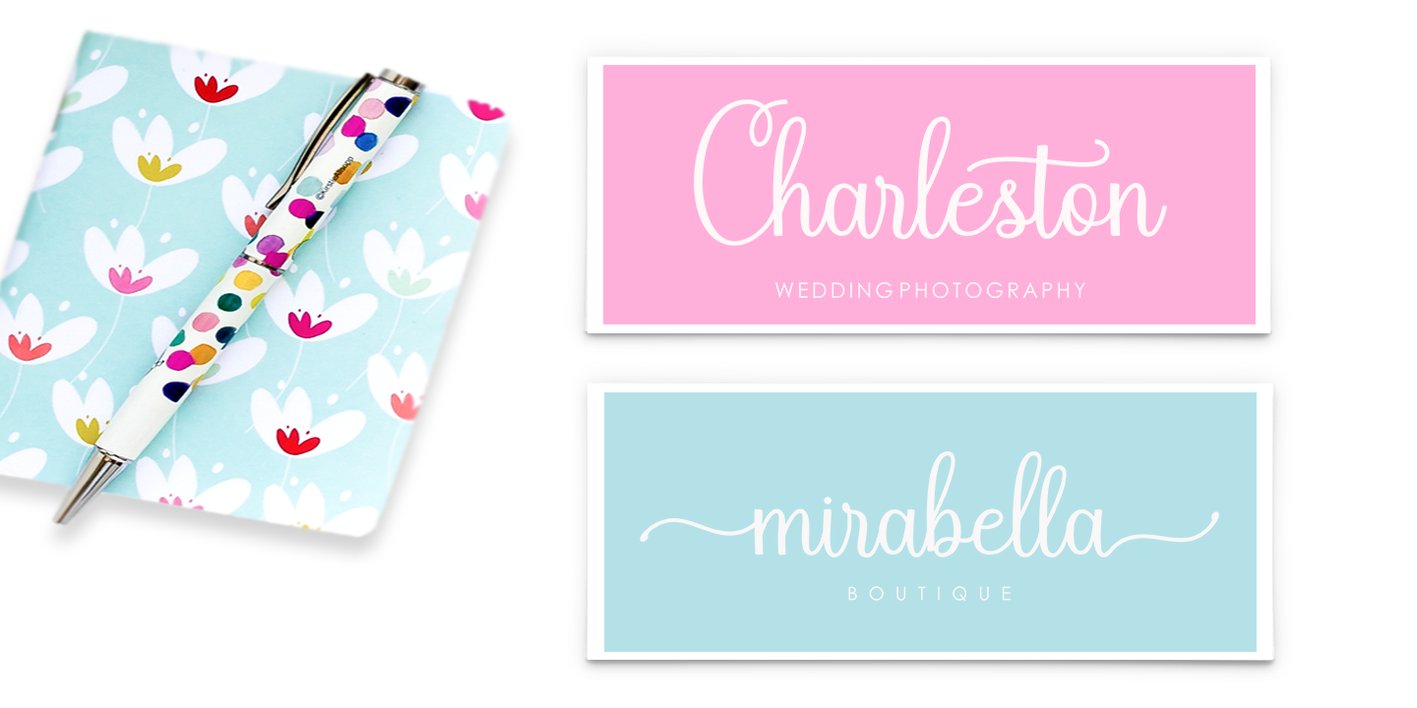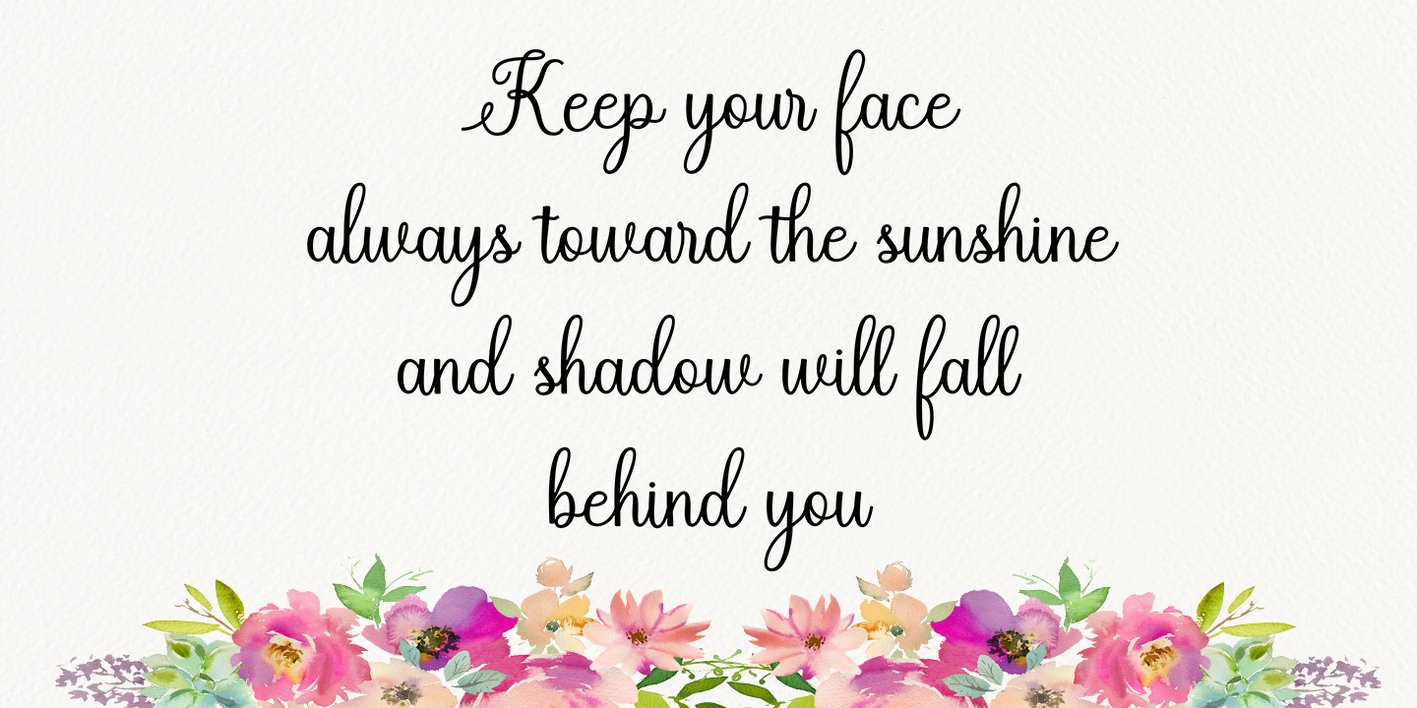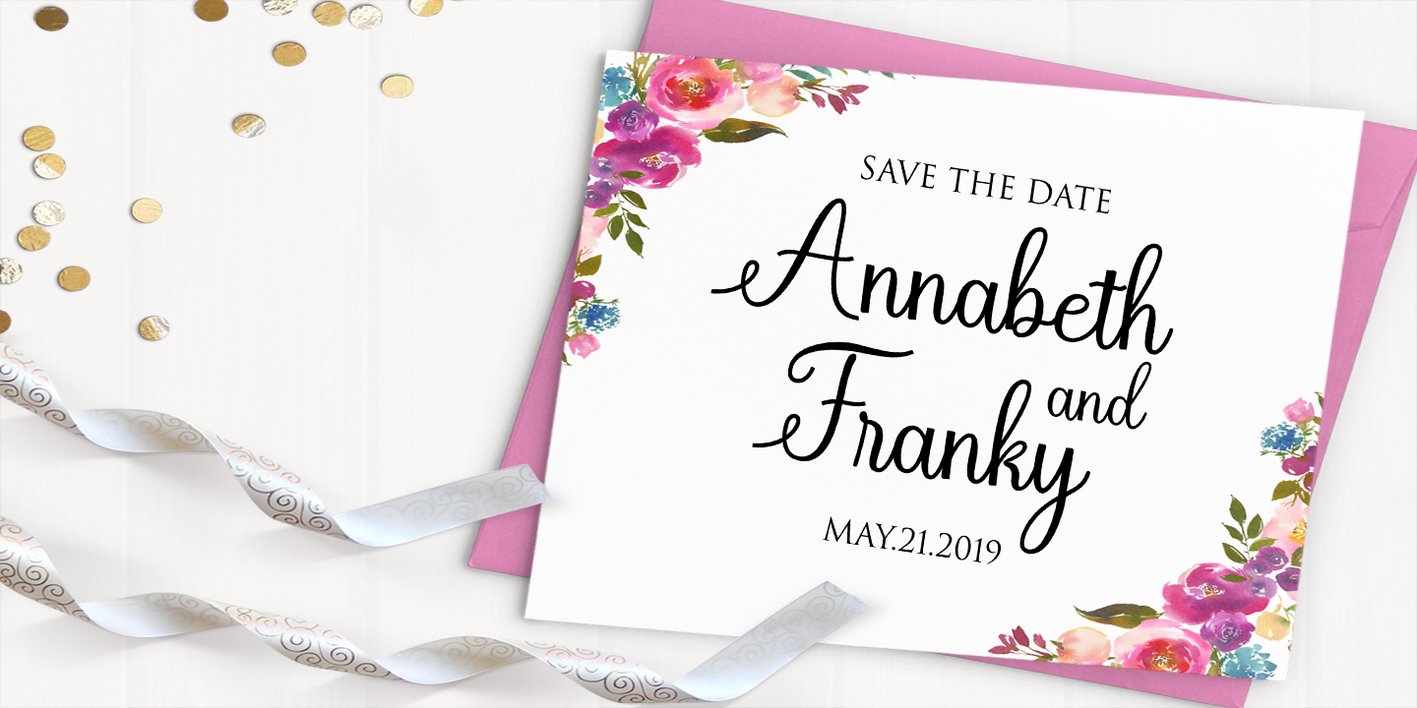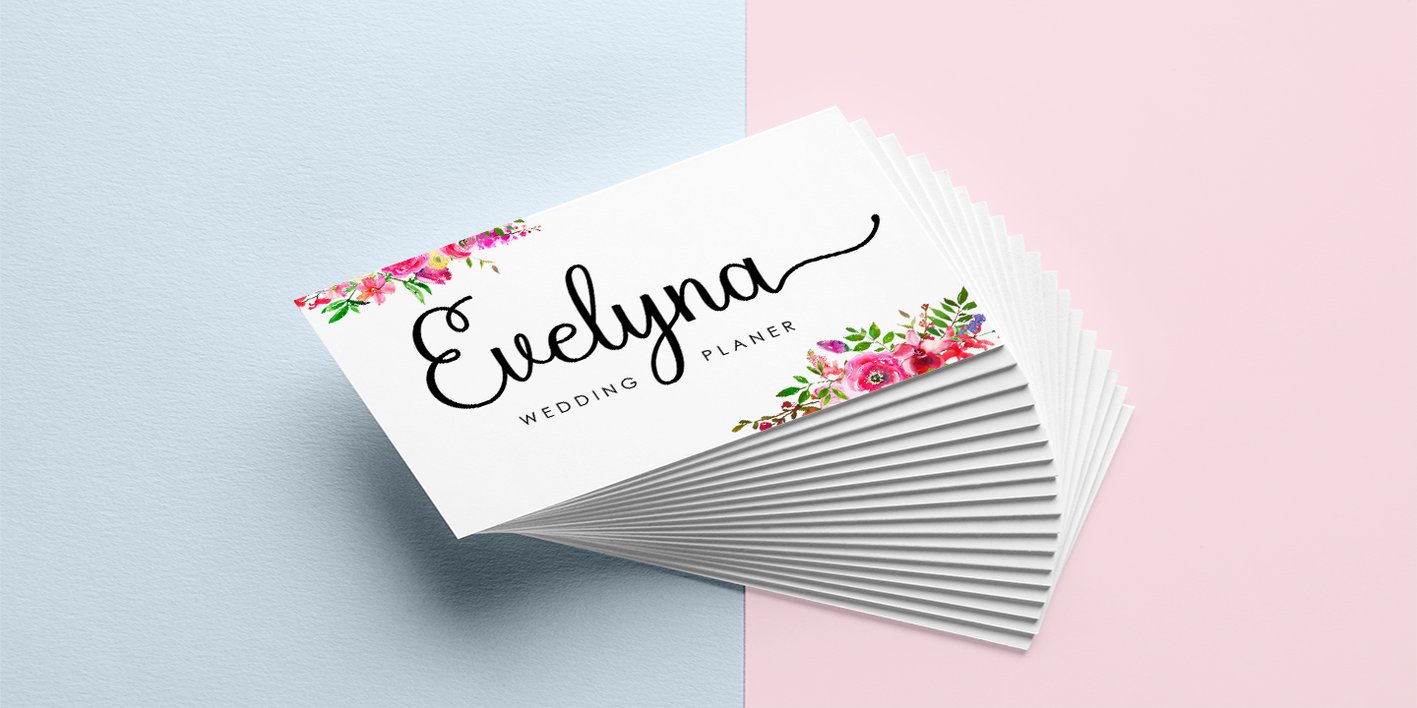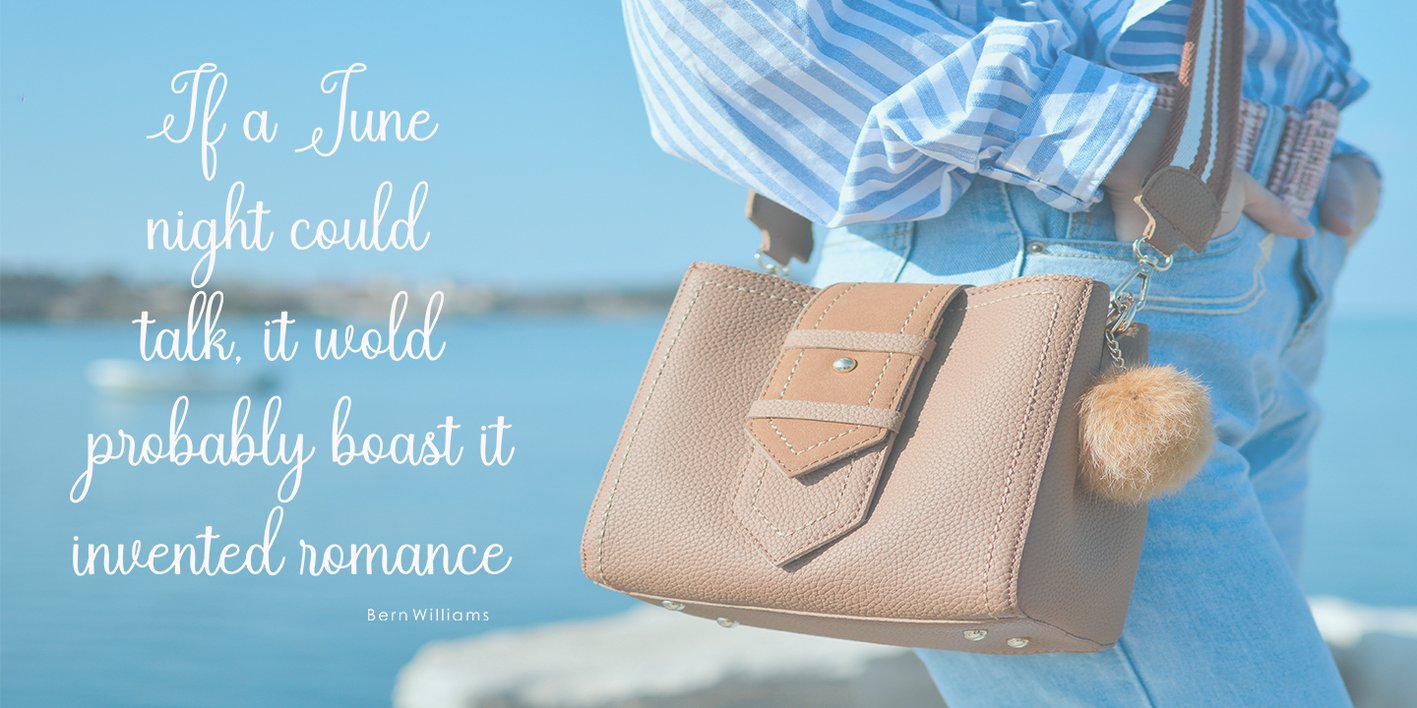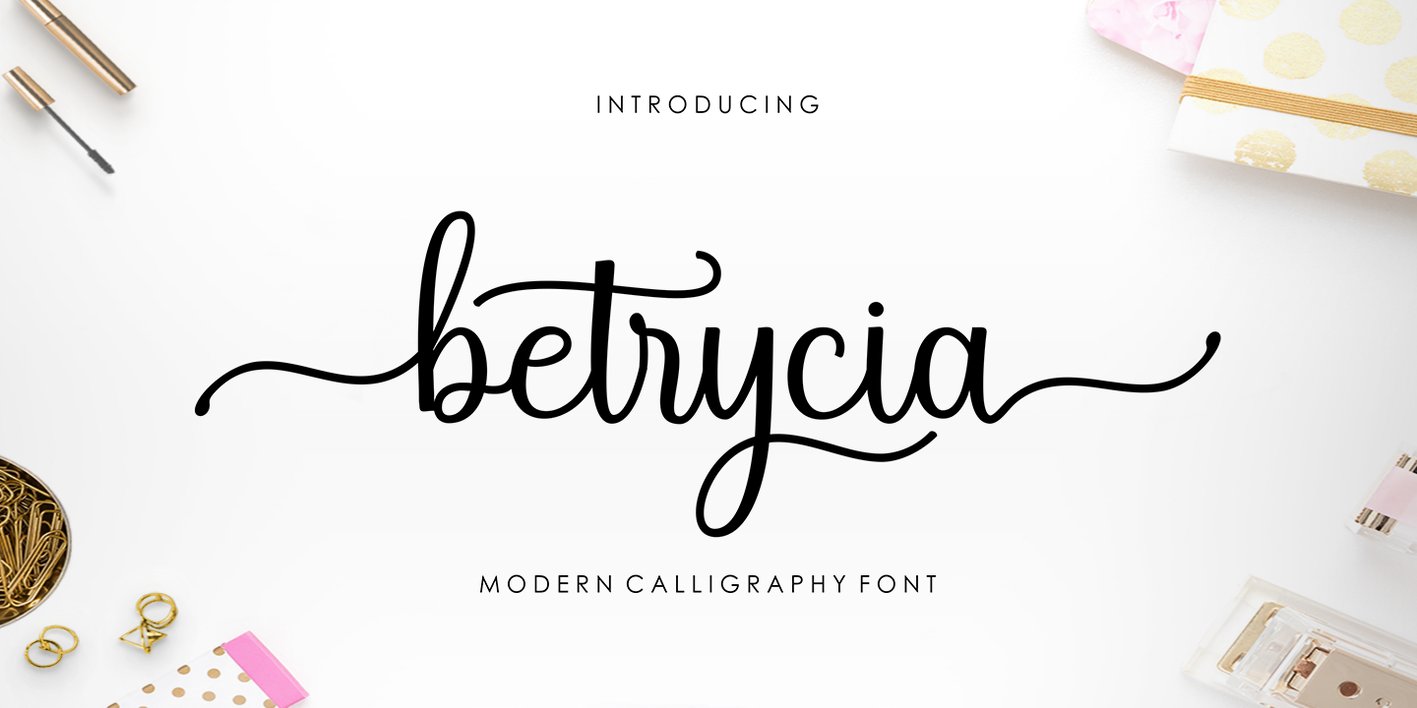
Betrycia Font
Betrycia Font excels in vintage beauty salon branding, retro fashion boutique signage, classic Hollywood-inspired designs, elegant vintage wedding invitations, nostalgic perfume packaging, art deco revival projects, sophisticated vintage restaurant menus, classic cinema poster recreations, timeless jewelry brand identities, and refined period piece productions. This graceful typeface brings timeless elegance and vintage sophistication to any classic-inspired design project.
Betrycia Font is exciting because it embodies the refined elegance and sophisticated glamour of bygone eras, featuring gracefully curved letterforms that evoke the golden age of Hollywood, the artistic beauty of art deco design, and the timeless sophistication that defined classic feminine elegance. Its vintage character instantly conveys luxury, refinement, and enduring style.
Betrycia Font family includes Light, Regular, Medium, and Bold weights with vintage alternates, art deco flourishes, classic ornamental elements, and period-inspired decorative glyphs that enhance the retro aesthetic, providing vintage designers with elegant tools for creating typography that celebrates the sophisticated beauty of classic design eras.
Vintage luxury designers appreciate Betrycia Font for its exceptional ability to convey classic sophistication and timeless elegance through meticulously crafted letterforms. The font's graceful character and period details create immediate associations with golden age glamour, classic Hollywood stars, and the refined lifestyle that defined sophisticated elegance in fashion, entertainment, and luxury goods.
The design inspiration behind Betrycia Font draws from classic typography traditions, art deco lettering, and the sophisticated visual language of vintage luxury brands, making it particularly effective for companies seeking to establish connections with timeless elegance and classic sophistication. Creative teams working on vintage luxury experiences find this font essential for authentic period styling.
Whether used for vintage luxury hotels, classic beauty brands, or sophisticated period entertainment, Betrycia Font delivers the perfect combination of timeless elegance and vintage authenticity. Its classic appeal and sophisticated charm make it an indispensable choice for brands that celebrate vintage glamour, timeless sophistication, and the enduring beauty of classic design excellence.